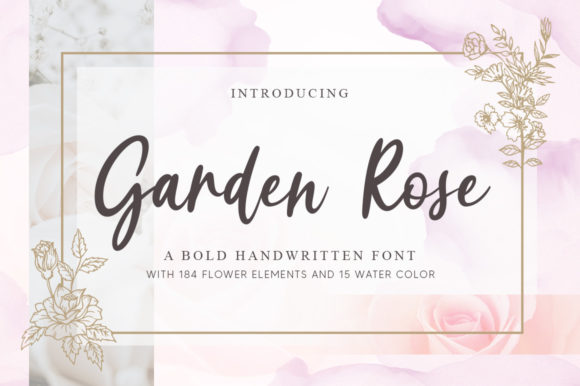
Step into a world of elegance and grace with Garden Rose Font, a captivating handwritten font that will leave you spellbound. Its sweeping strokes and delicate swashes evoke a sense of timeless romance, making it the perfect choice for creating beautiful wedding invitations, greeting cards, logos, branding materials, and other designs that demand a touch of sophistication.
With its playful and joyful spirit, Garden Rose adds a touch of whimsy to any project. Its natural flow and smooth curves bring a sense of movement and energy, making it ideal for creating dynamic posters, flyers, and social media graphics. Whether you're a professional designer or a creative enthusiast, Garden Rose will elevate your designs to new heights.
But Garden Rose is more than just a pretty face. It's also incredibly versatile, lending itself effortlessly to a wide range of design styles. Its delicate lines and intricate details add a touch of femininity and charm to any project, while its strong presence and bold strokes make it suitable for more modern and edgy designs.
So, why settle for ordinary fonts when you can have the extraordinary? Embrace the allure of Garden Rose Font and embark on a creative journey that will captivate your audience. Let your designs bloom with beauty and grace, and create masterpieces that leave a lasting impression.